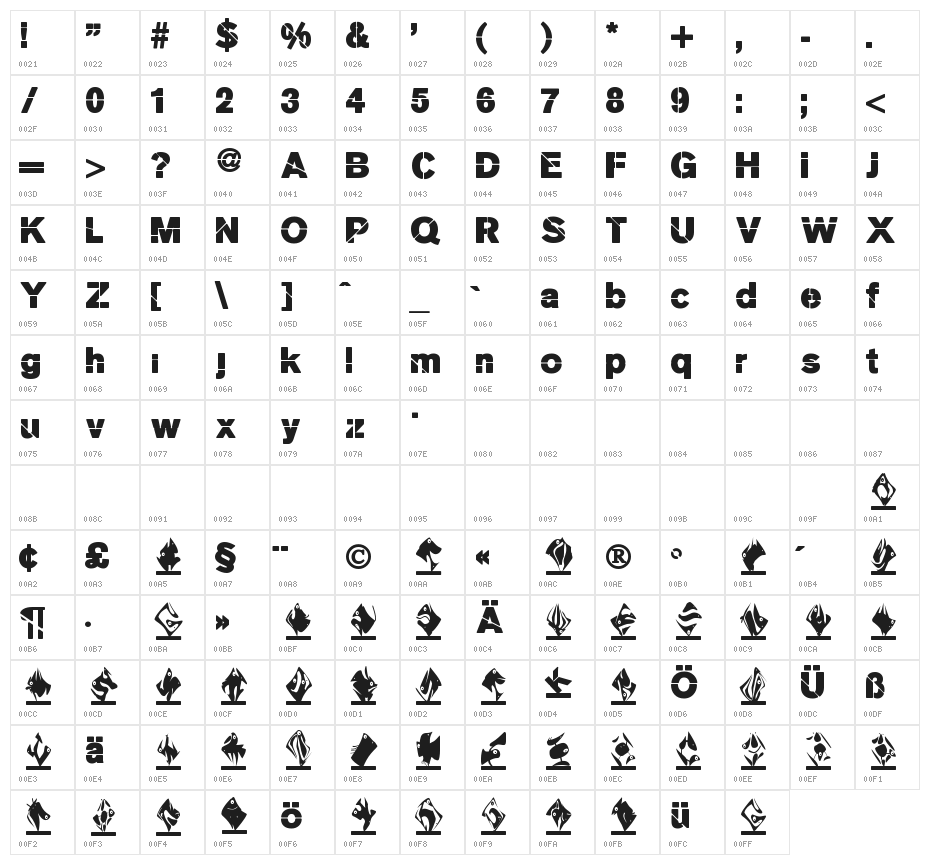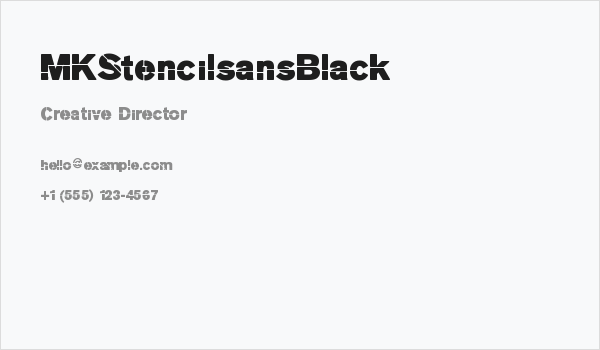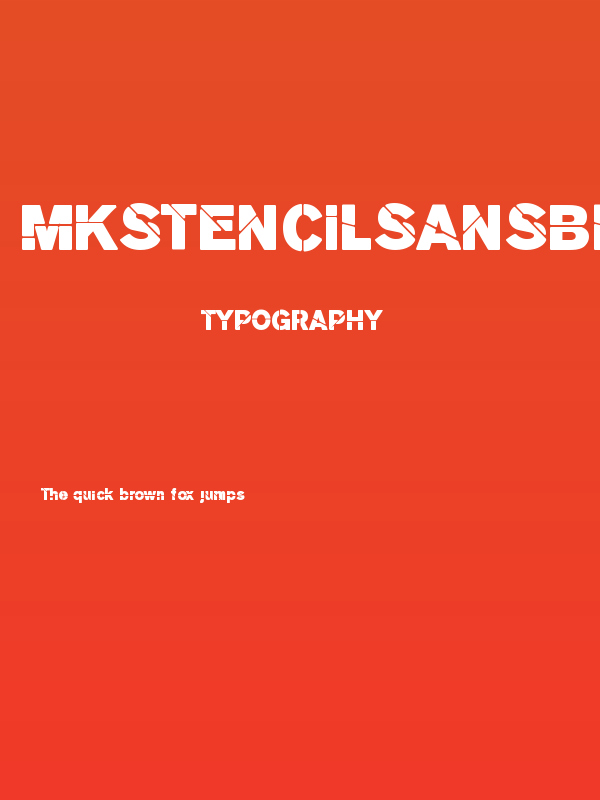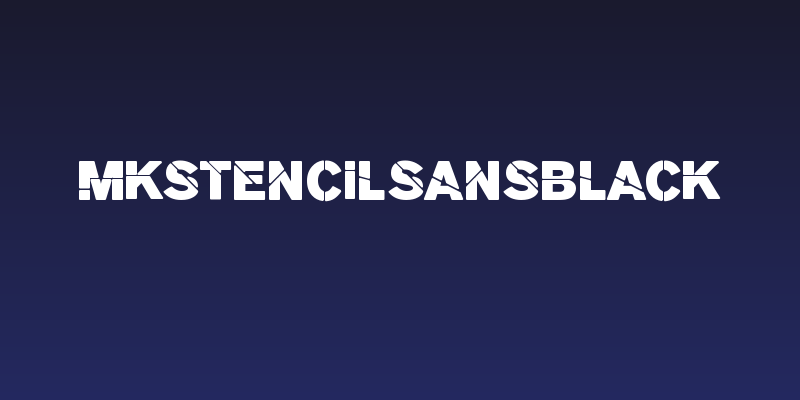
MKStencilsansBlack Font
MKStencilsansBlack Description
This font features a bold, stencil-inspired design with thick, block-like characters. The letters are characterized by their solid, geometric shapes and distinct cut-out sections, giving them a rugged, industrial feel. The uppercase and lowercase letters maintain a consistent weight, providing a uniform appearance across the alphabet. Numbers and special characters follow the same design principles, ensuring a cohesive look. The font's boldness and unique style make it stand out, ideal for attention-grabbing headlines or impactful logos.
| Proposed Projects | Ideal for military-themed designs, posters, logos, and branding that require a strong, industrial aesthetic. |